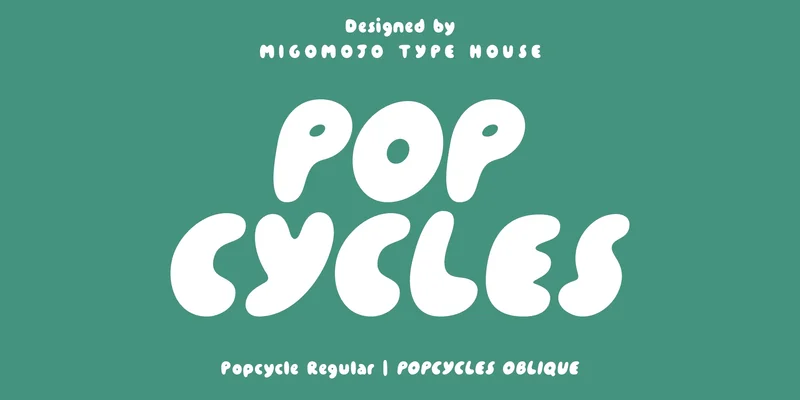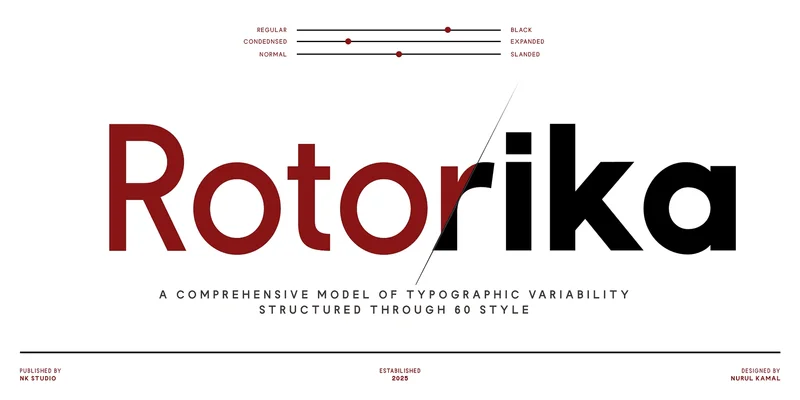
Popcycles is a chunky, groovy display font that brings instant 90s typography fun to your projects. With its youthful, playful, and organic letterforms, it adds a bold and nostalgic touch to your designs.
Rotorika is more than just typography; it’s a system of expression. Designed with precision and flexibility, Rotorika brings a new level of typographic versatility, offering 60 structured styles.